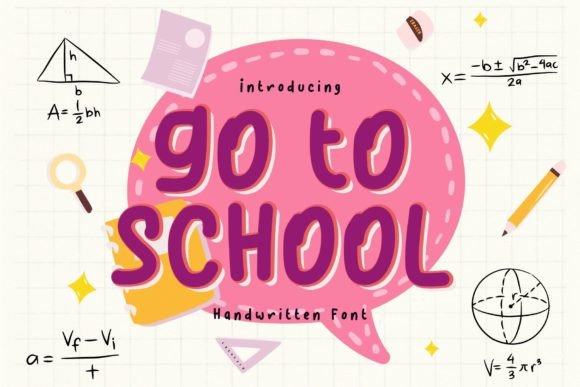
Unleash your creativity with Go to School Font, the captivating handwritten script font that exudes playfulness and authenticity. Designed by the talented Brown Cupple Fonts, this font is a versatile masterpiece that effortlessly elevates your projects to new heights.
Immerse yourself in the world of Go to School Font - a font that captures the essence of handwritten charm. With its playful and authentic style, it's the perfect choice for expressing your individuality in a myriad of projects. Whether you're crafting captivating blog posts, designing eye-catching logos, building strong brands, or creating memorable invitations and greeting cards, Go to School Font adds a touch of magic to every endeavor.
Step into the world of limitless design possibilities with Go to School Font, the ultimate tool for transforming your creative visions into reality. It's the perfect companion for planners and photo albums, adding a personal touch to your memories. Elevate your home décor with stunning decorations featuring Go to School Font, creating an ambiance that reflects your unique style. And for those looking to share their creativity with the world, Go to School Font shines in ads and social media posts, capturing attention and leaving a lasting impression.